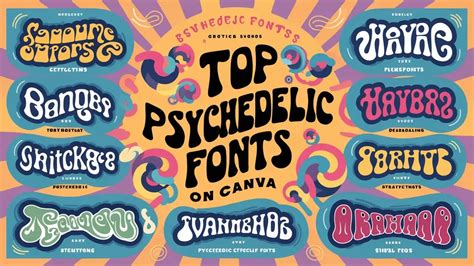
Groovy Fonts: Unleash Psychedelic Designs In Canva
Groovy Fonts: Unleash Psychedelic Designs in Canva
Hey guys! Are you ready to take a trip back to the era of peace, love, and mind-bending visuals? Or maybe you just want to infuse your designs with a bit of retro flair? Either way, you’re in the right place! We’re diving deep into the world of psychedelic fonts available right here in Canva. Get ready to explore fonts that scream far out , groovy , and everything in between. Buckle up, because we’re about to turn your designs into a psychedelic masterpiece!
What Makes a Font Psychedelic?
Before we jump into the fonts themselves, let’s talk about what makes a font qualify as “psychedelic.” It’s more than just being weird or wacky . Psychedelic fonts often evoke a sense of altered perception, vibrant colors, and fluid movement. They draw inspiration from the art and design of the 1960s and 70s, a time when experimentation was king.
Think about these characteristics when you’re choosing a font:
• Wavy and distorted shapes: Many psychedelic fonts feature letters that seem to bend, twist, and melt. This creates a sense of visual movement and disorientation, mimicking the effects of psychedelic experiences.
• Bold and heavy strokes: To really grab attention, psychedelic fonts often use thick, chunky letterforms. This adds to their visual impact and makes them stand out from the crowd.
• Rounded and organic forms: In contrast to sharp, angular fonts, psychedelic fonts often embrace rounded shapes and flowing curves. This gives them a softer, more organic feel, reminiscent of nature and the free-flowing spirit of the era.
• Elaborate serifs and embellishments: Some psychedelic fonts take things to the next level with intricate serifs, swashes, and other decorative elements. These embellishments add visual interest and personality to the font.
• Vibrant colors (when applicable): While Canva doesn’t directly apply colors to fonts in the traditional sense (you have to do that manually), psychedelic fonts often imply vibrant colors through their design. Imagine these fonts in neon hues, and you’ll get the picture!
When considering psychedelic fonts , think about the overall mood you want to create. Are you going for a fun, playful vibe? Or something more intense and mind-bending? The right font can make all the difference.
Top Psychedelic Font Picks in Canva
Alright, let’s get down to the good stuff! Canva has a surprisingly diverse selection of fonts that can be used to create a psychedelic effect. Here are some of my top picks, along with ideas on how to use them:
1. Funkydori
This font is like a disco ball in typeface form! Funkydori screams retro with its bubbly, rounded letters and playful vibe. It’s perfect for posters, flyers, and social media graphics that need a touch of 70s funk.
• Best used for: Headlines, titles, and short bursts of text.
• Pair it with: A clean, sans-serif font for body text to balance out the funkiness.
• Color palette: Think bright, bold colors like orange, yellow, and turquoise.
2. Bungee Shade
Looking for something with a bit more oomph ? Bungee Shade is a bold, blocky font with a cool, retro shadow effect. It’s got a strong, confident vibe that’s perfect for making a statement.
• Best used for: Logos, posters, and anything that needs to grab attention.
• Pair it with: A simple sans-serif or a condensed font to avoid overwhelming the design.
• Color palette: Earthy tones like brown, green, and orange, or go bold with contrasting colors.
3. Ranchers
Ranchers offers that vintage, western-inspired feel but can be tweaked to achieve a psychedelic vibe. Its slightly distorted and uneven letterforms provide a unique, hand-drawn aesthetic.
• Best used for: Branding projects, posters, and social media content where you want to add a touch of vintage psychedelia.
• Pair it with: A simple serif or sans-serif font to maintain readability.
• Color palette: Warm and muted colors, such as mustard yellow, burnt orange, and faded denim blue.
4. Pacifico
Though Pacifico is a script font, its flowing, handwritten style can evoke a sense of freedom and fluidity that aligns with the psychedelic aesthetic. Its casual and friendly appearance makes it versatile for various design needs.
• Best used for: Adding a personal touch to invitations, posters, and social media posts.
• Pair it with: A clean sans-serif font to balance the script and improve readability.
• Color palette: Soft, pastel colors or vibrant, contrasting hues to make it pop.
5. Lobster Two
Lobster Two is a condensed bold script font with a retro feel. Its connected letters and flowing lines can be reminiscent of vintage signage and psychedelic posters.
• Best used for: Headlines, logos, and designs that need a touch of vintage flair.
• Pair it with: A simple sans-serif font to ensure the design remains balanced and readable.
• Color palette: Retro color schemes, such as teal, mustard yellow, and burnt orange.
6. Ultra
This font is, well, ultra bold! It’s a heavy, impactful font that demands attention. While it might not immediately scream “psychedelic,” its sheer weight and presence can be used to create a powerful visual statement.
• Best used for: Headlines, posters, and anything that needs to be seen from a mile away.
• Pair it with: A lighter weight sans-serif font to create contrast.
• Color palette: High-contrast colors like black and white, or neon colors for a truly psychedelic effect.
7. Playfair Display
Playfair Display is an elegant serif font with a high contrast between thick and thin strokes. While it’s often used for more formal designs, its dramatic flair can be harnessed to create a sophisticated psychedelic look.
• Best used for: Headlines, editorial designs, and anything that needs a touch of class with a twist.
• Pair it with: A simple sans-serif font for body text.
• Color palette: Jewel tones like emerald green, sapphire blue, and ruby red.
8. Montserrat
You might be thinking, “Wait, Montserrat? That’s a pretty standard sans-serif font!” And you’d be right. But that’s the beauty of it! Sometimes, the most effective way to create a psychedelic effect is to subvert expectations . Use Montserrat in unexpected ways – try distorting it, adding unusual colors, or layering it with other elements.
• Best used for: Body text, subheadings, and adding a clean, modern contrast to more overtly psychedelic elements.
• Pair it with: Any of the other fonts on this list!
• Color palette: Anything goes! Experiment with different color combinations to see what works best.
Tips and Tricks for Creating Psychedelic Typography in Canva
Okay, so you’ve chosen your font. Now what? Here are some tips and tricks to take your psychedelic typography to the next level:
• Experiment with color: Don’t be afraid to use bright, bold, and contrasting colors. Think neon pink, electric blue, and acid green. Use Canva’s color picker to find the perfect shades.
• Add effects: Canva offers a variety of effects that can be used to distort and manipulate your text. Try adding a shadow, glow, or outline to create depth and dimension.
• Distort and warp: While Canva doesn’t have advanced text distortion tools, you can still create a warped effect by layering multiple text boxes and slightly rotating or skewing them.
• Use patterns and textures: Overlay your text with patterns and textures to add visual interest. Think tie-dye, paisley, or geometric shapes.
• Animate your text: Bring your psychedelic typography to life with animation! Canva’s animation tools allow you to create dynamic text effects that will really grab attention.
• Embrace the unexpected: The key to creating truly psychedelic designs is to experiment and break the rules. Don’t be afraid to try new things and see what happens!
Examples of Psychedelic Designs Using Canva Fonts
Let’s take a look at some examples of how these fonts can be used in real-world designs:
• A concert poster: Use Funkydori or Bungee Shade for the headlining band’s name, and add swirling patterns and vibrant colors to create a visually arresting poster.
• A social media graphic: Use Pacifico or Lobster Two to add a personal touch to your social media posts. Overlay the text with a tie-dye pattern for a truly psychedelic effect.
• A website header: Use Ultra or Playfair Display to create a bold and impactful website header. Animate the text to draw the visitor’s eye.
Conclusion: Go Forth and Get Groovy!
So there you have it, folks! A guide to creating psychedelic typography in Canva. With a little creativity and experimentation, you can transform your designs into mind-bending masterpieces. So go forth, embrace the weird, and get groovy! Remember, there are a lot of psychedelic fonts to choose from, so experiment and have fun. Peace out!